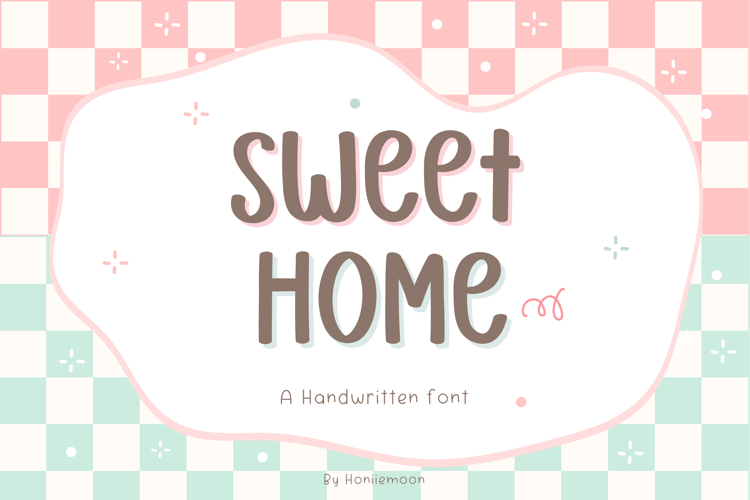
Sweet Home is a charming and playful handwritten font designed to bring warmth and personality to your creative projects! Crafted with a delightful, organic feel, Sweet Home is perfect for adding a touch of sweetness and authenticity to any design.